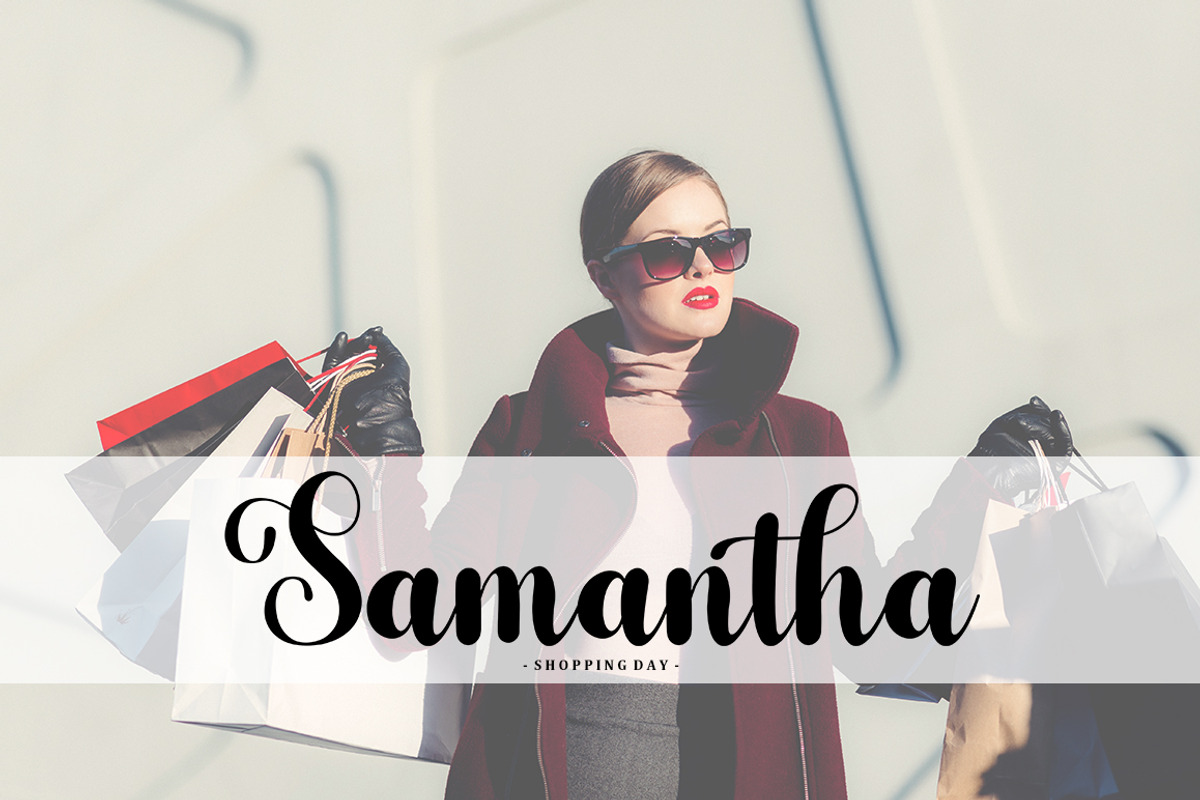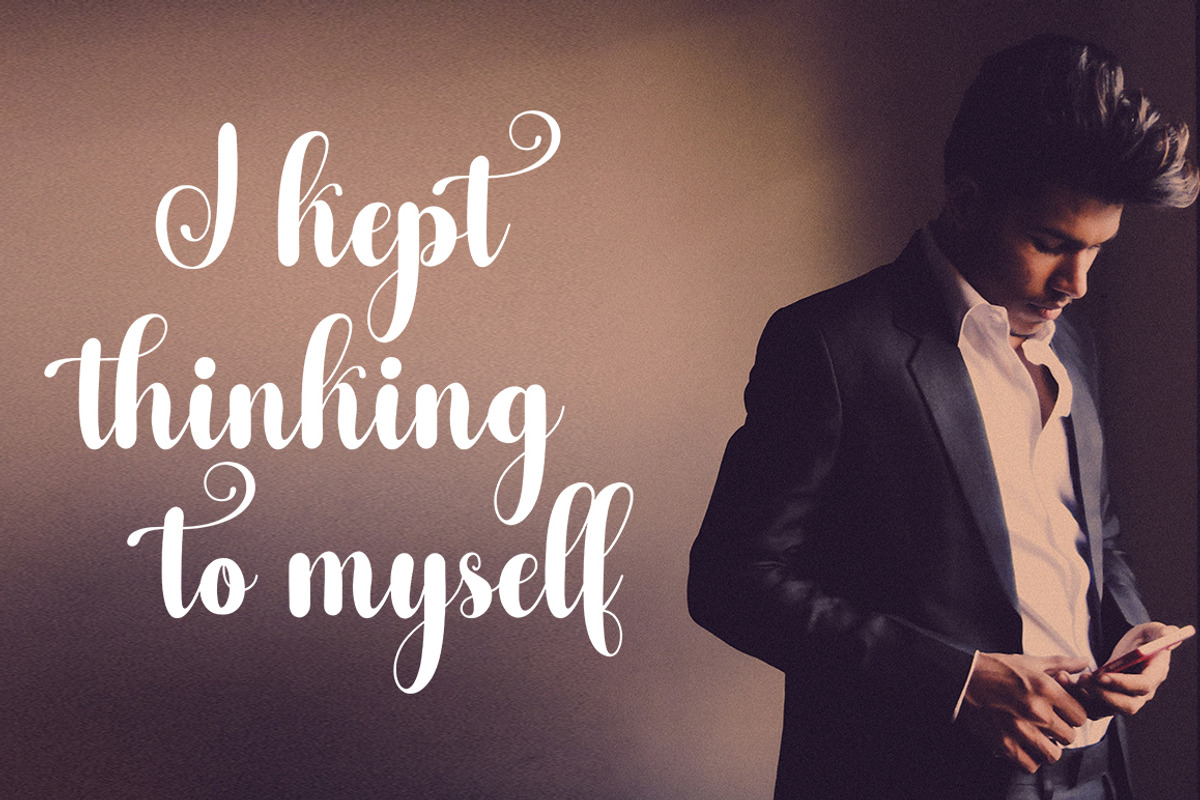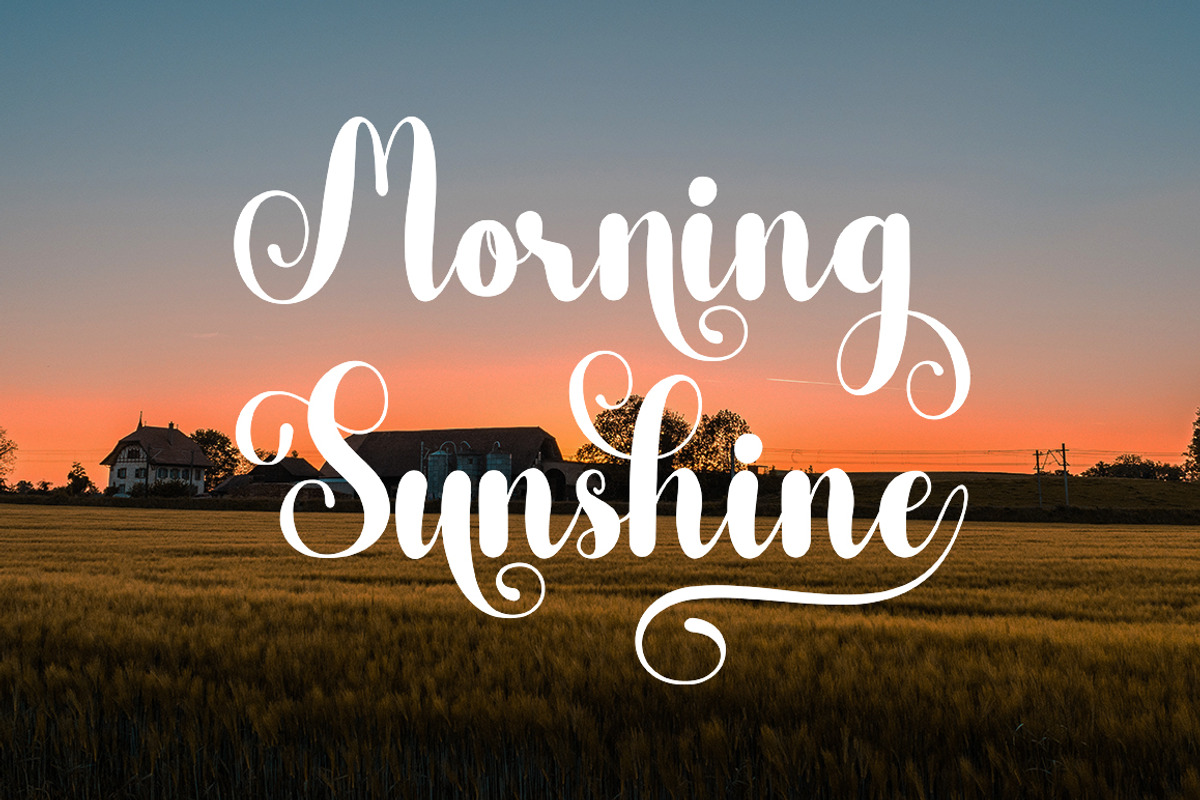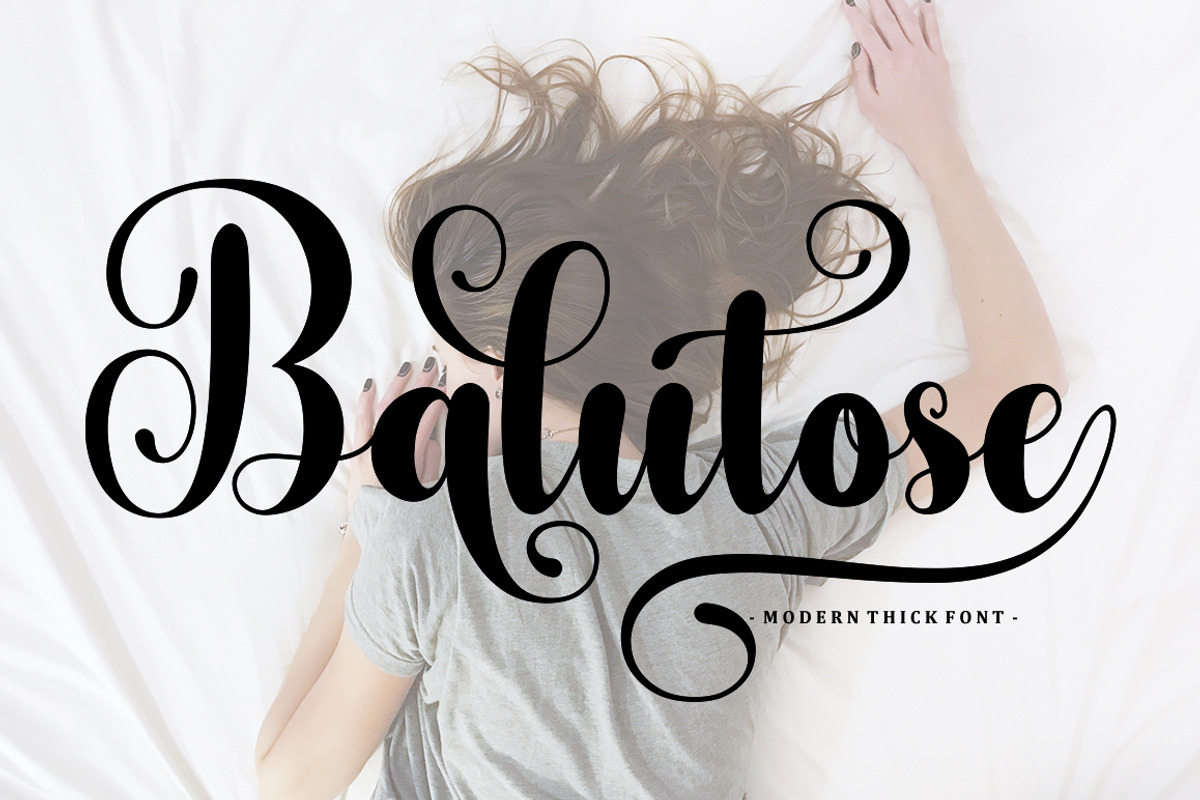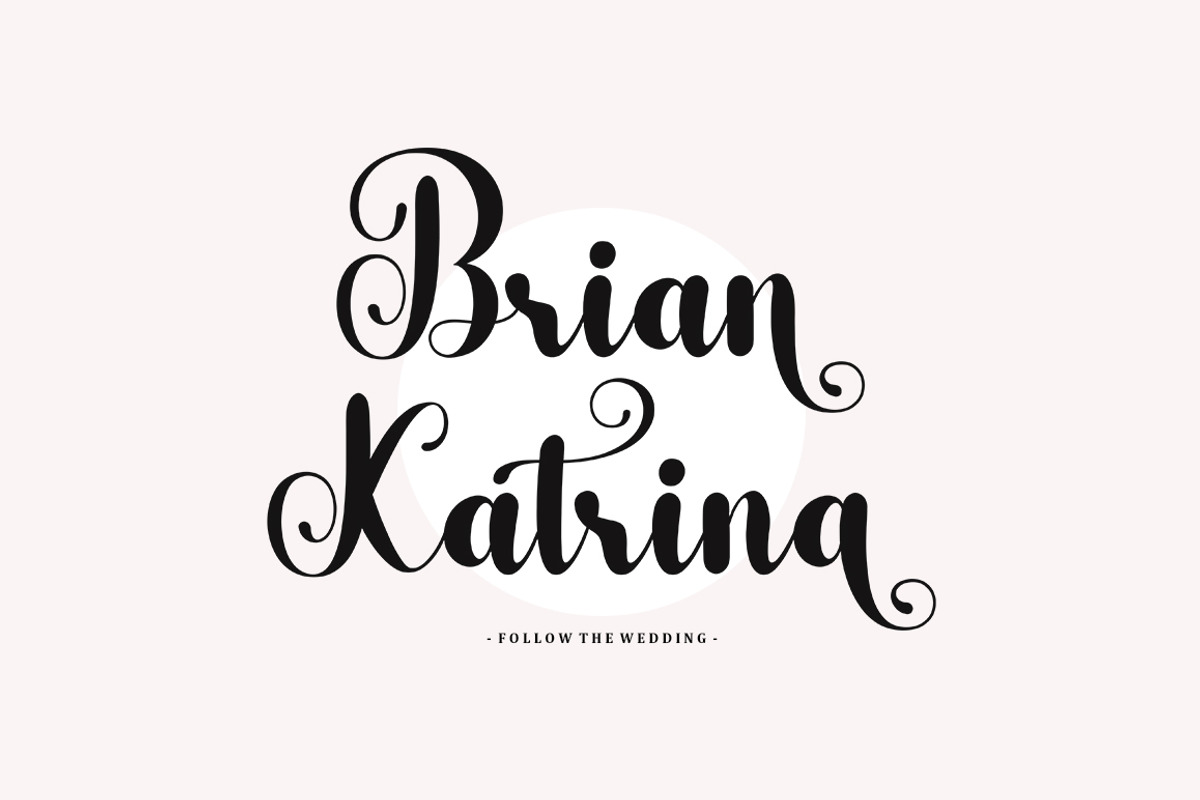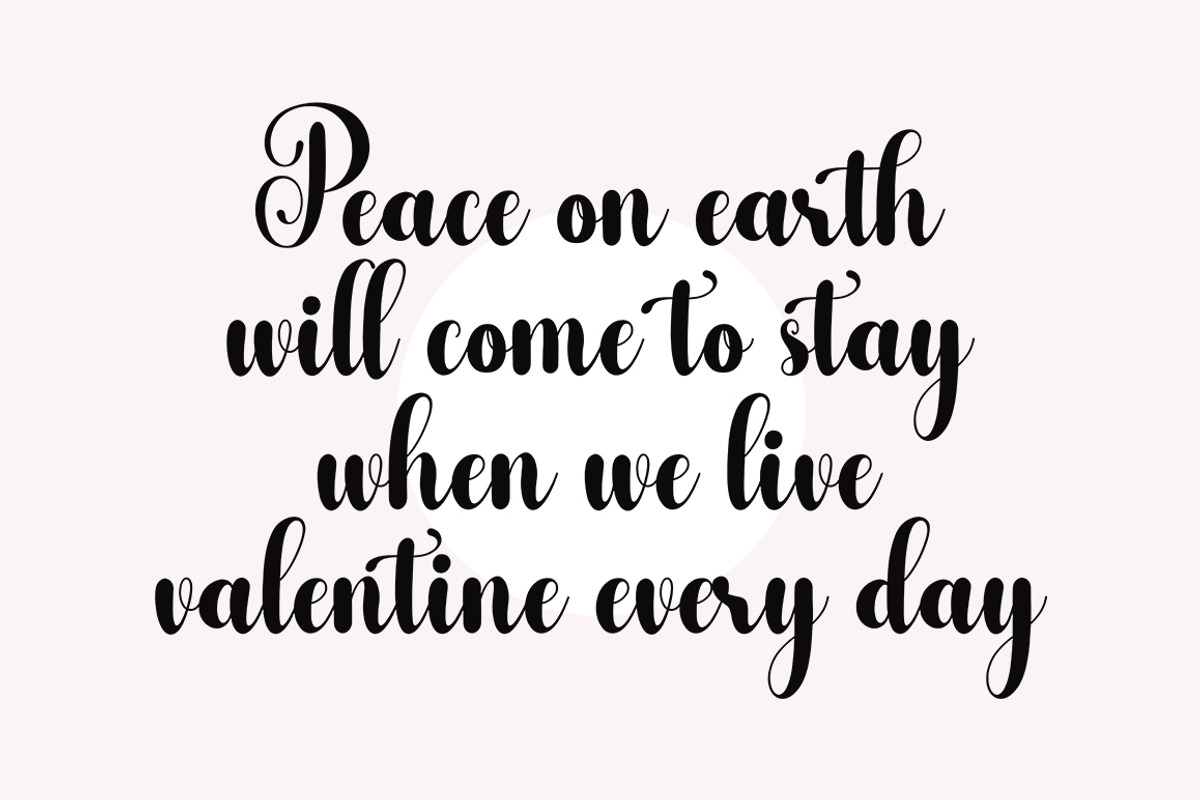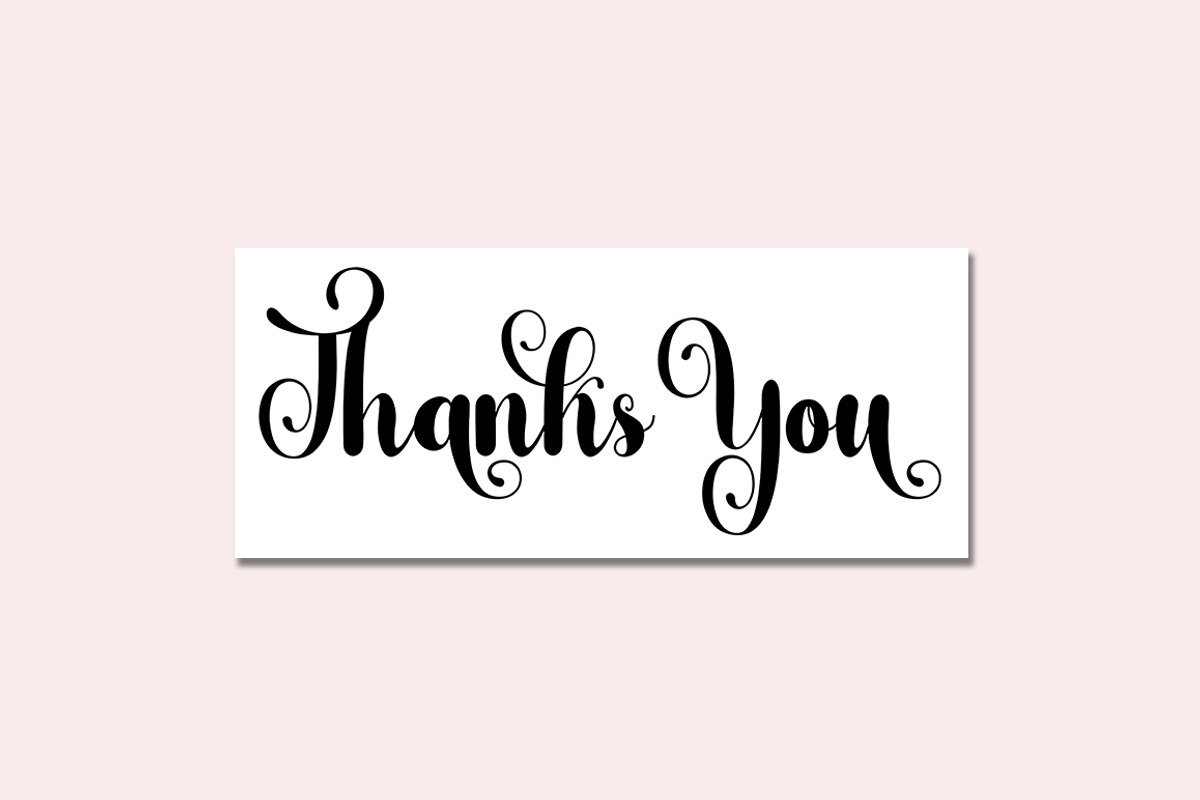
Balutose
Introducing
Balutose Modern Calligraphy. This font was designed by handwriting, and it has a modern and unique forms of calligraphy, the writing style is very natural.
The Features of this fonts is;
Standart ligatures
Contextual Alternates
Stylistic sets